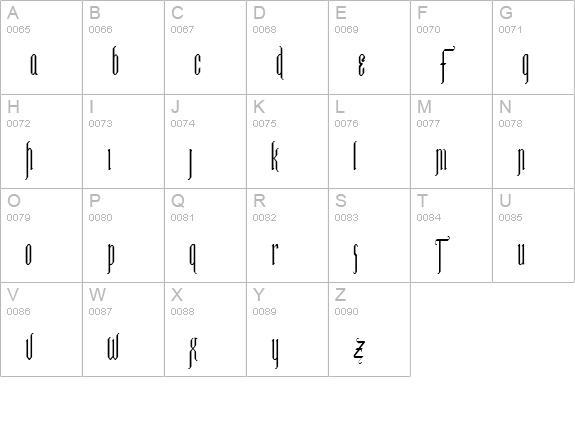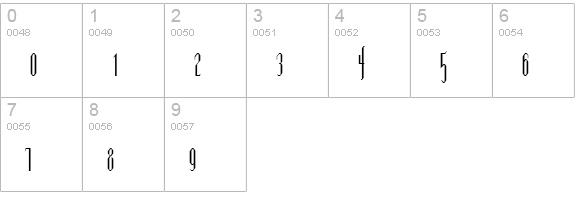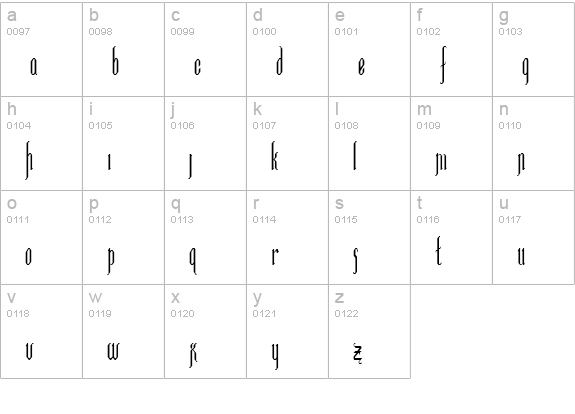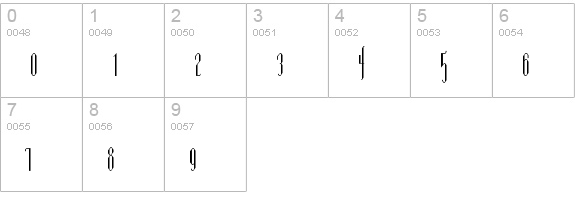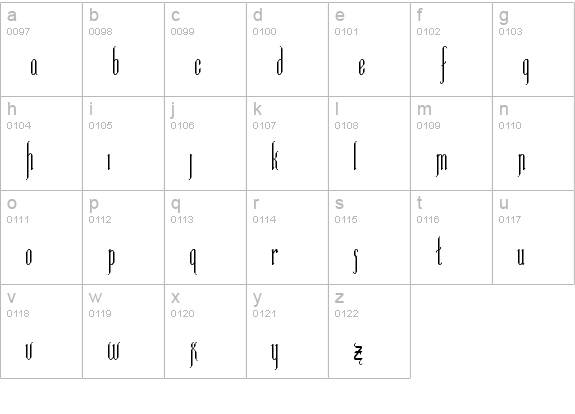
IpswichCondensed Normal Font Details
IpswichCondensed Normal is the standard, neutral variant in the IpswichCondensed typeface family \xE2\x80\x94 well suited to general body text, paragraphs, and standard typographic work.
IpswichCondensed Normal is a sleek and modern font that exudes a sense of sophistication and elegance. With its condensed letterforms and clean lines, this font is perfect for adding a touch of professionalism to any design project. The versatility of IpswichCondensed Normal makes it suitable for a wide range of applications, from logos and branding to headlines and body text. Its legible and balanced proportions ensure readability, even at smaller sizes. One of the standout features of IpswichCondensed Normal is that it is available for free download at FontsMarket.com. This means that you can access this high-quality font without any cost, making it an ideal choice for both personal and commercial projects. Whether you're a graphic designer looking to create eye-catching designs or a business owner in need of a modern and stylish font for your marketing materials, IpswichCondensed Normal is the perfect choice. Its sleek design, combined with its availability as a free download, makes it a valuable addition to any font library.